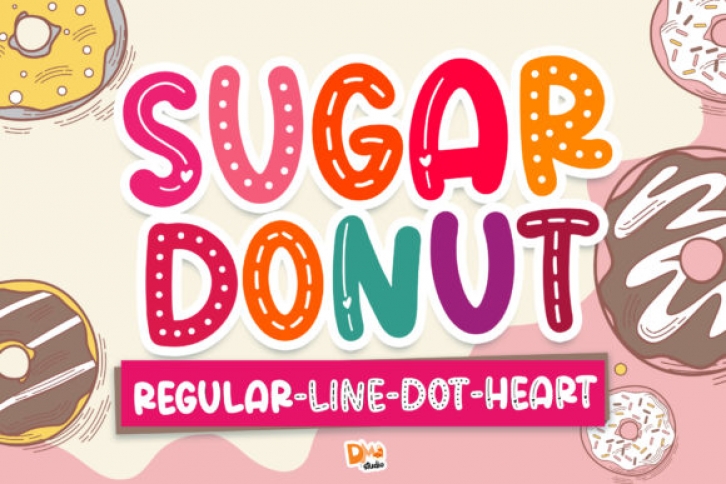
Sugar Donut is a cute and fun display font. It embodies playfulness and authenticity and is the perfect choice for any children's activity or school project. Add this chunky lettered font to your designs and notice how it makes them come alive!